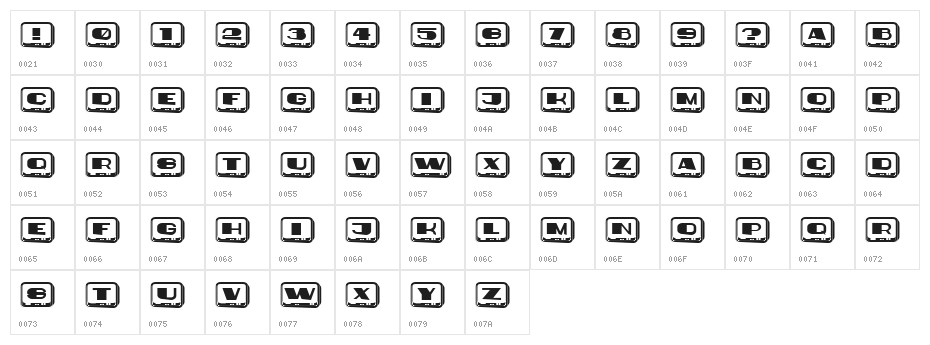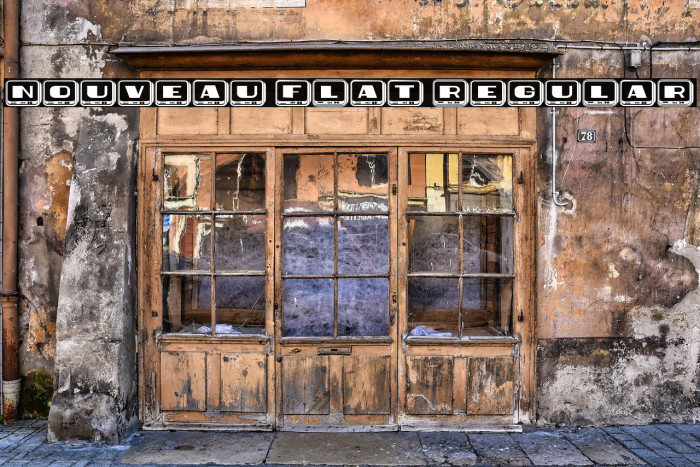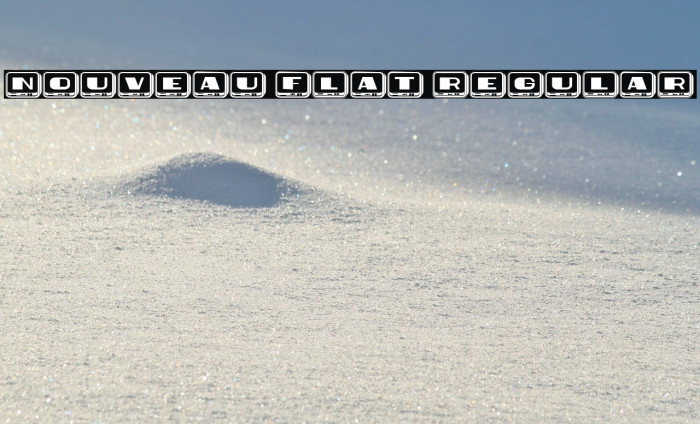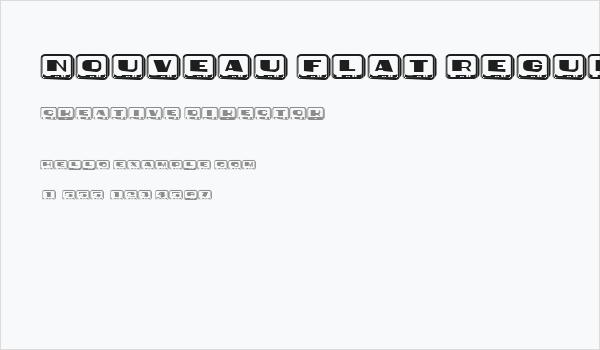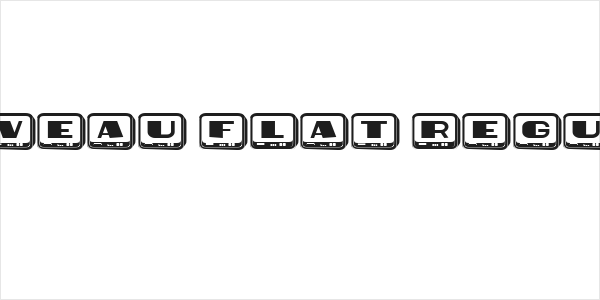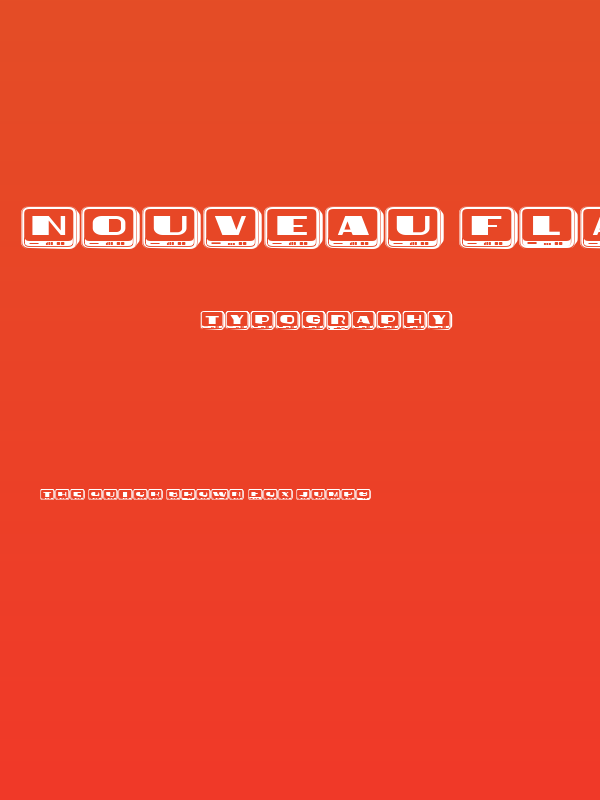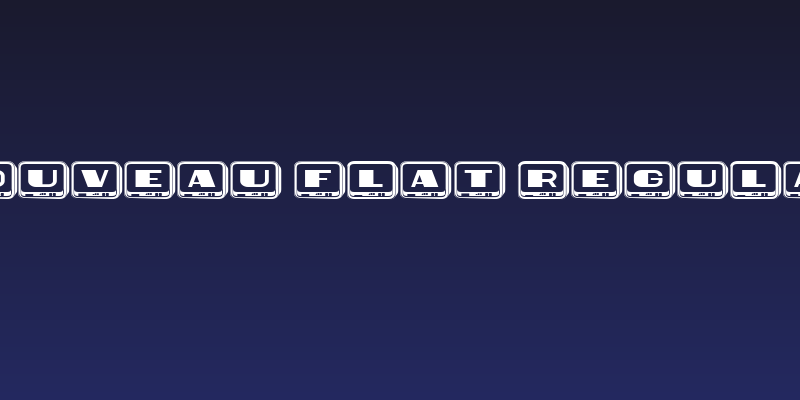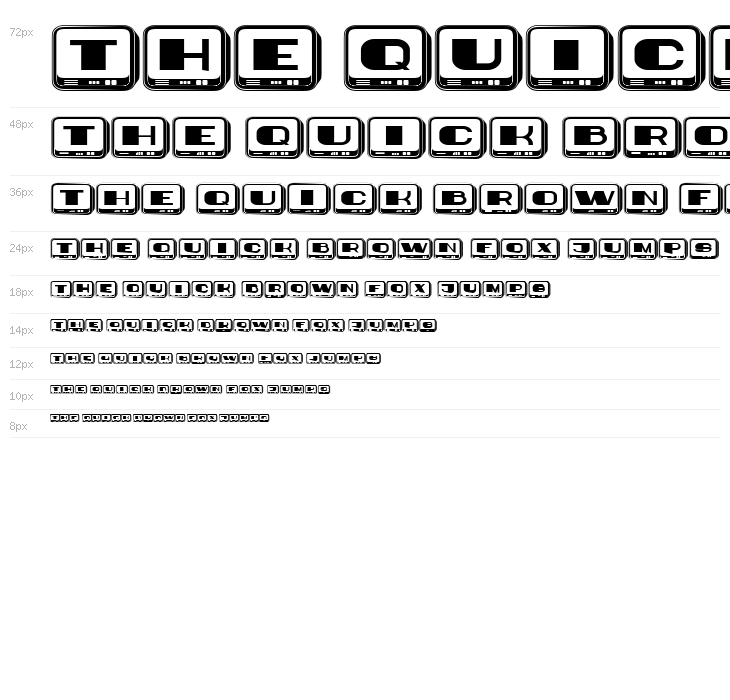
Nouveau Flat Regular Font
Nouveau Flat Regular Description
This font features a bold, modern design with a distinct retro-futuristic aesthetic. Each character is enclosed in a square, giving it a unique, boxed appearance. The letters and numbers are bold and have a uniform thickness, creating a strong visual impact. The enclosed style adds a layer of complexity and depth, making it stand out in any design. The characters are evenly spaced within their boxes, ensuring readability while maintaining a compact look. This font is ideal for projects that require a futuristic or tech-inspired theme, offering a blend of modern and vintage elements.
| Overall Style | Modern, Retro-Futuristic |
| Proposed Projects | Ideal for tech-themed designs, video game graphics, futuristic posters, and branding that requires a modern yet retro touch. |